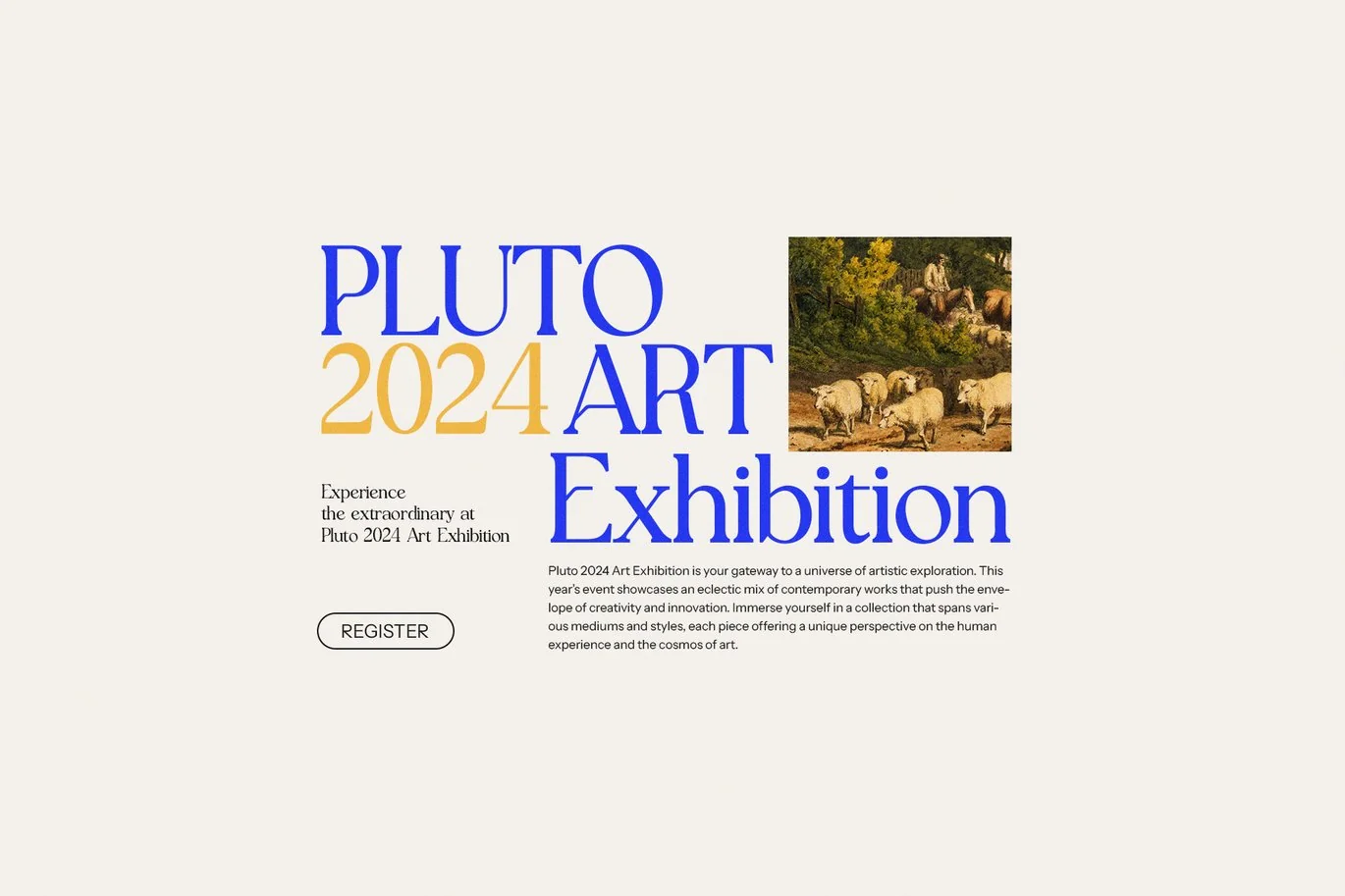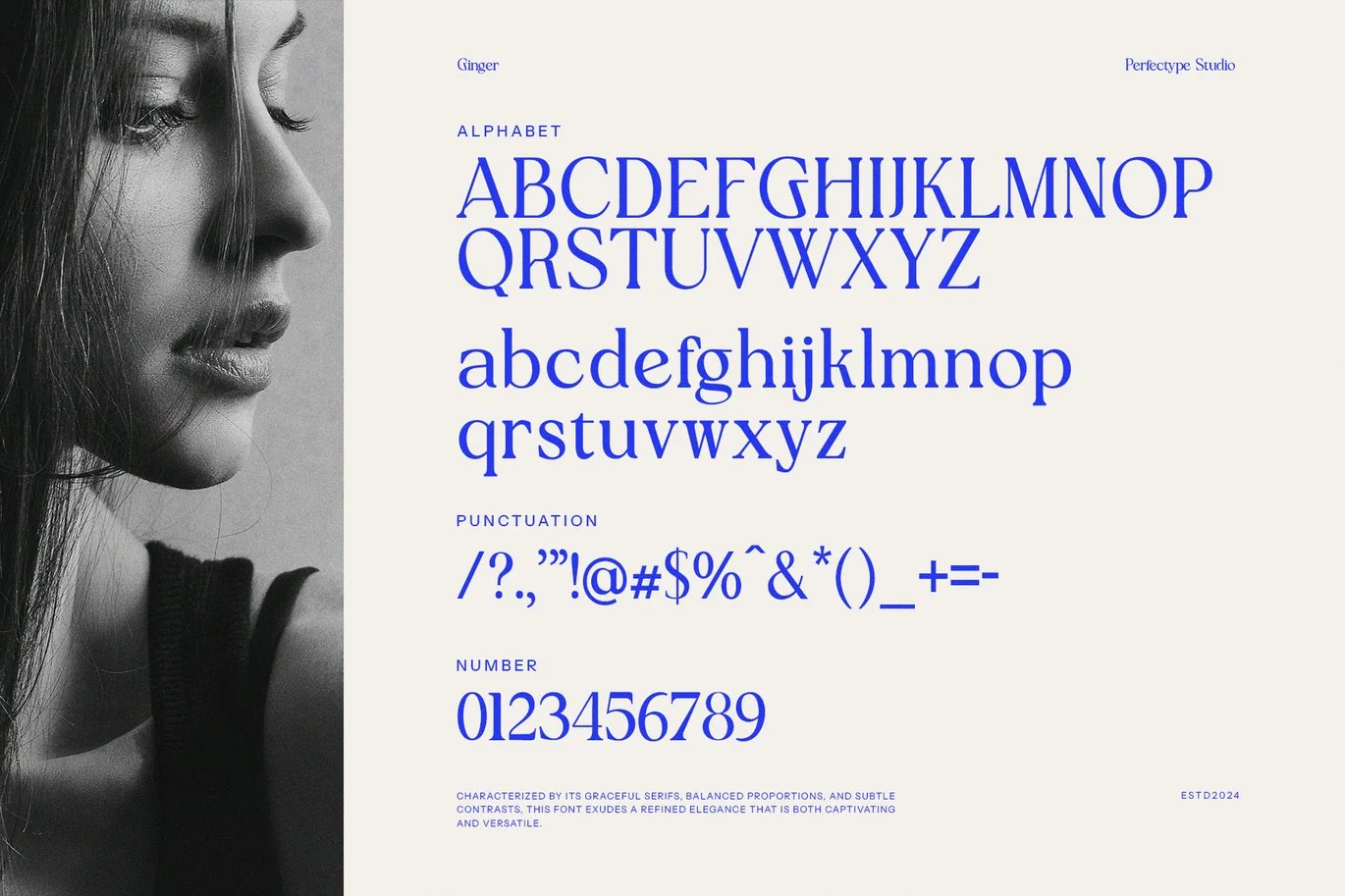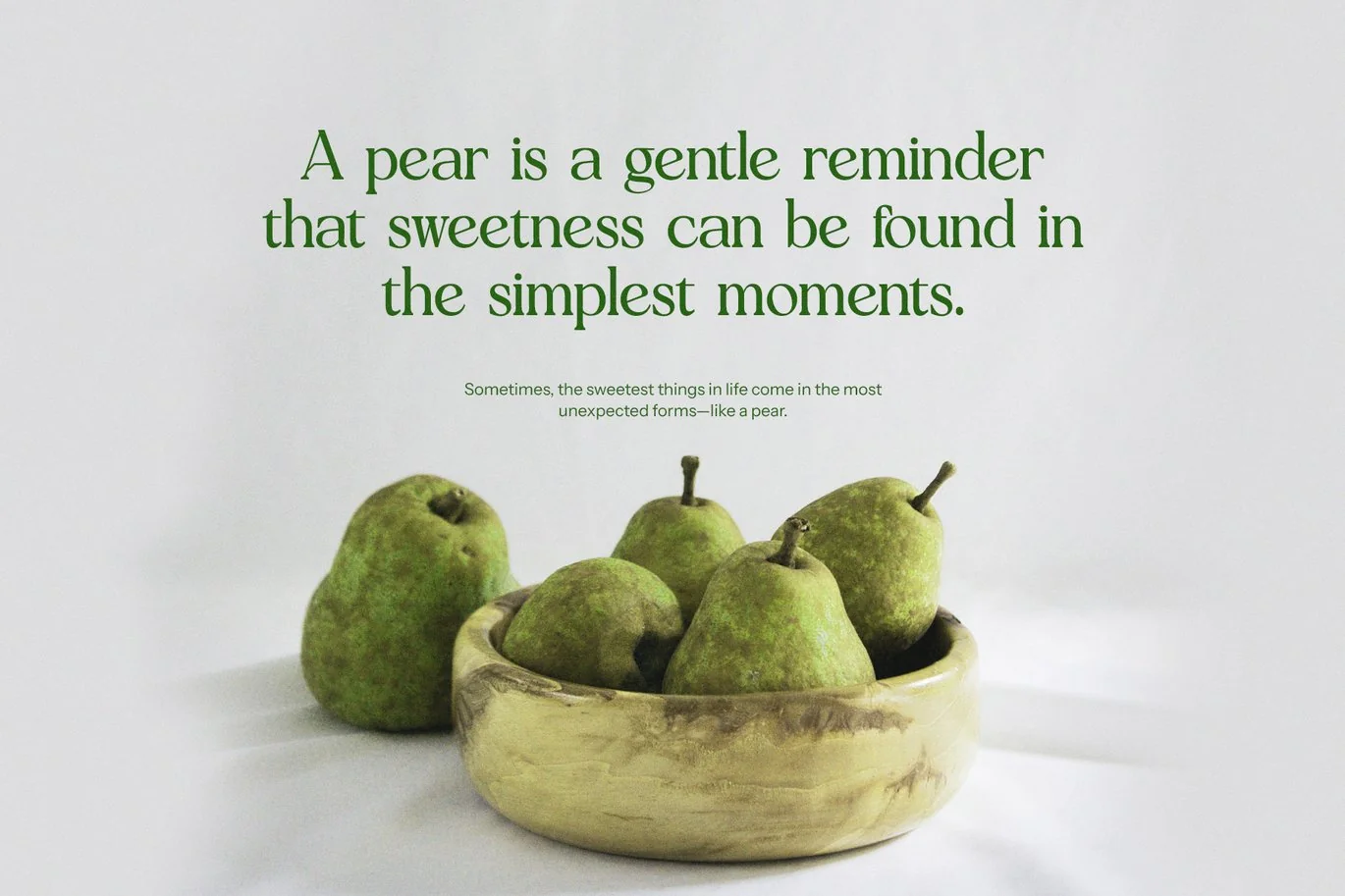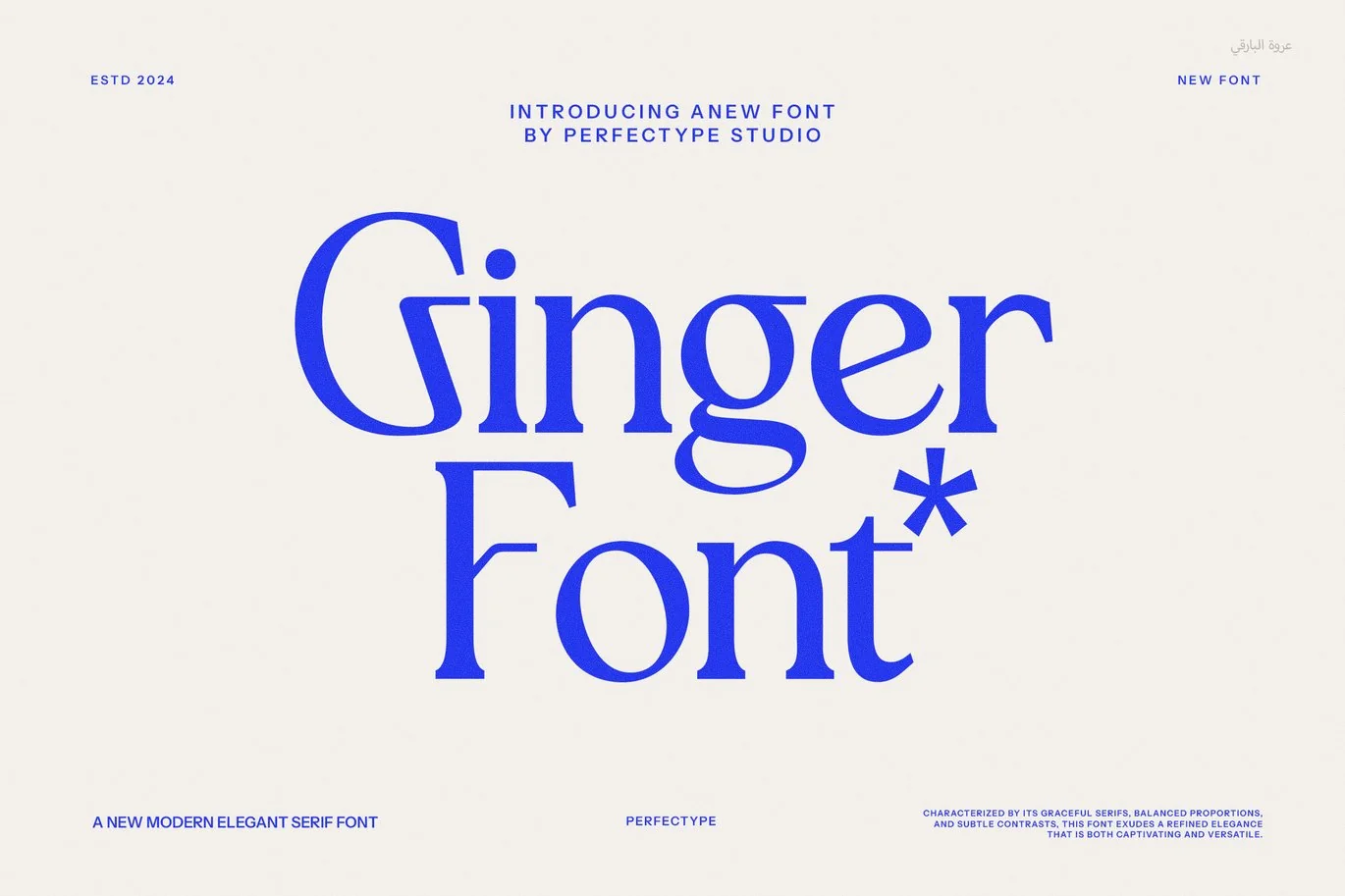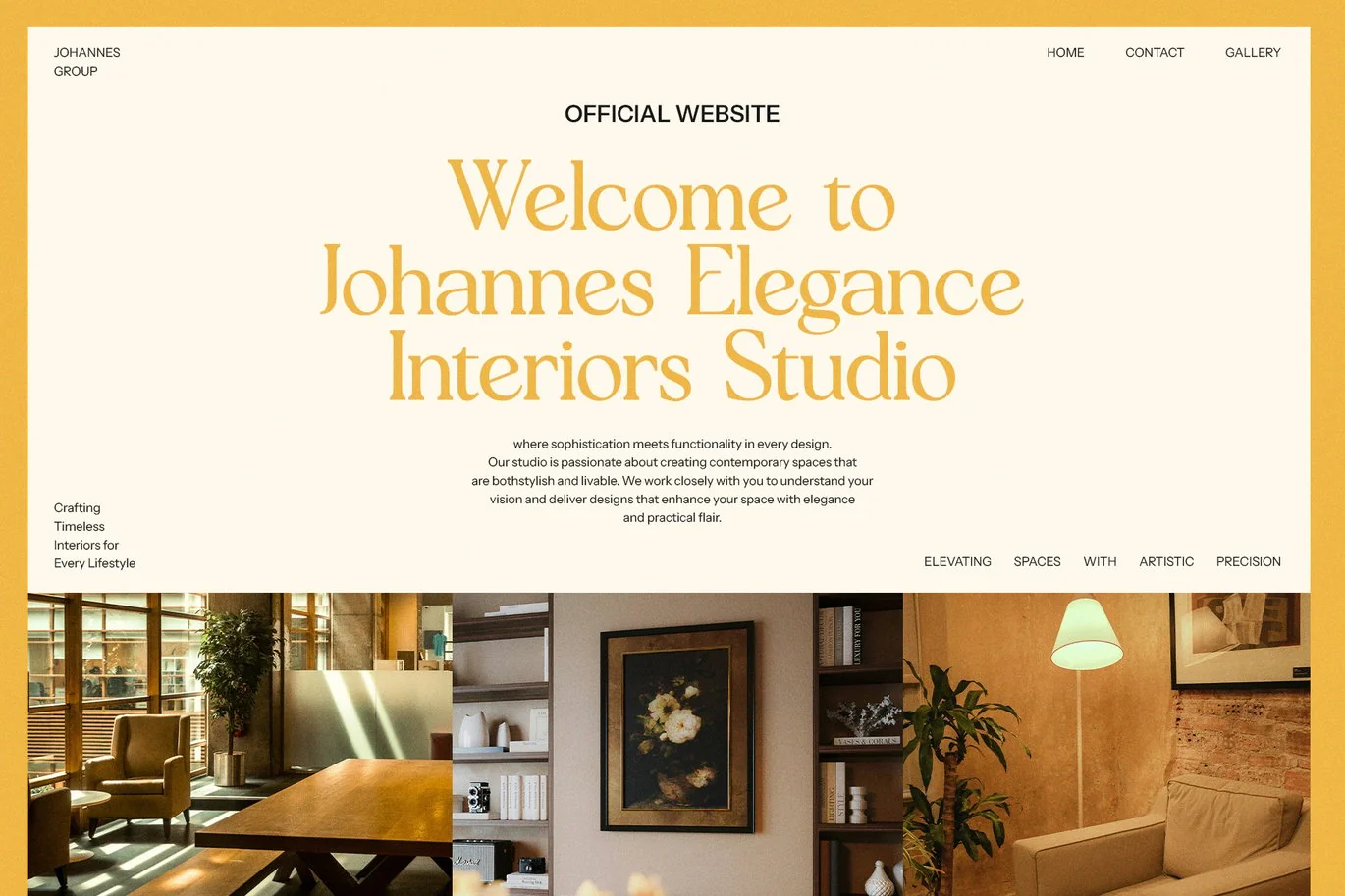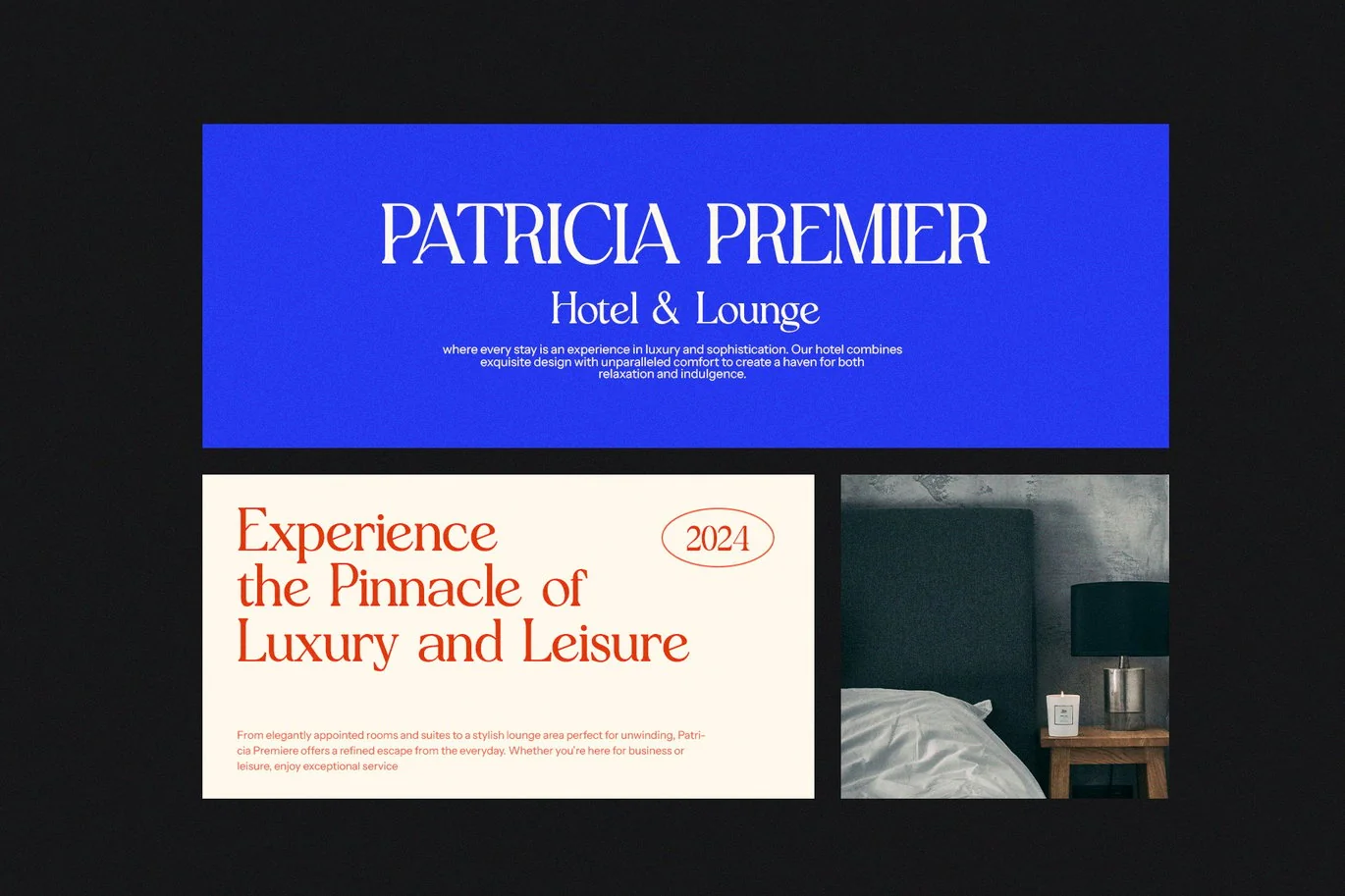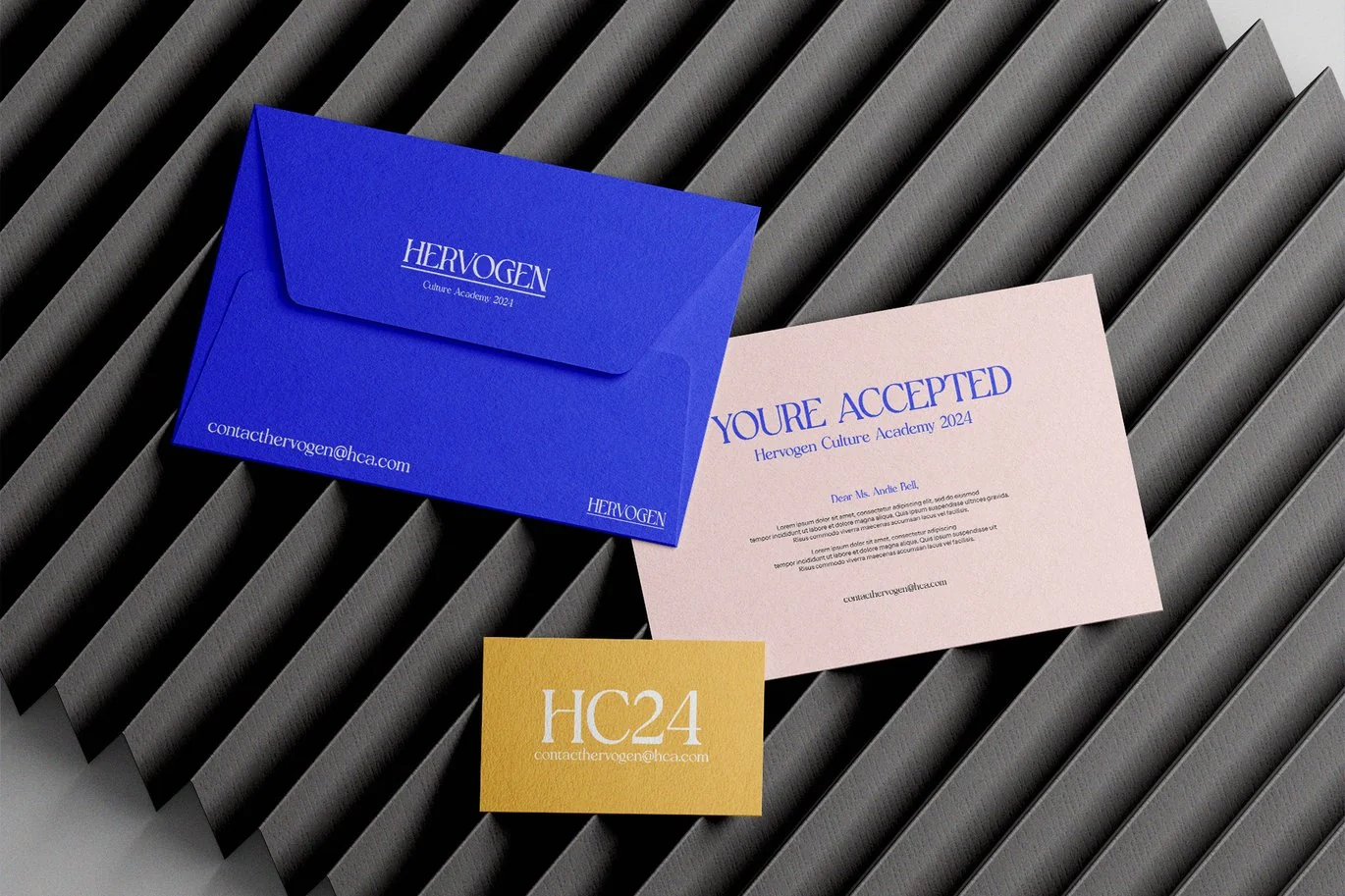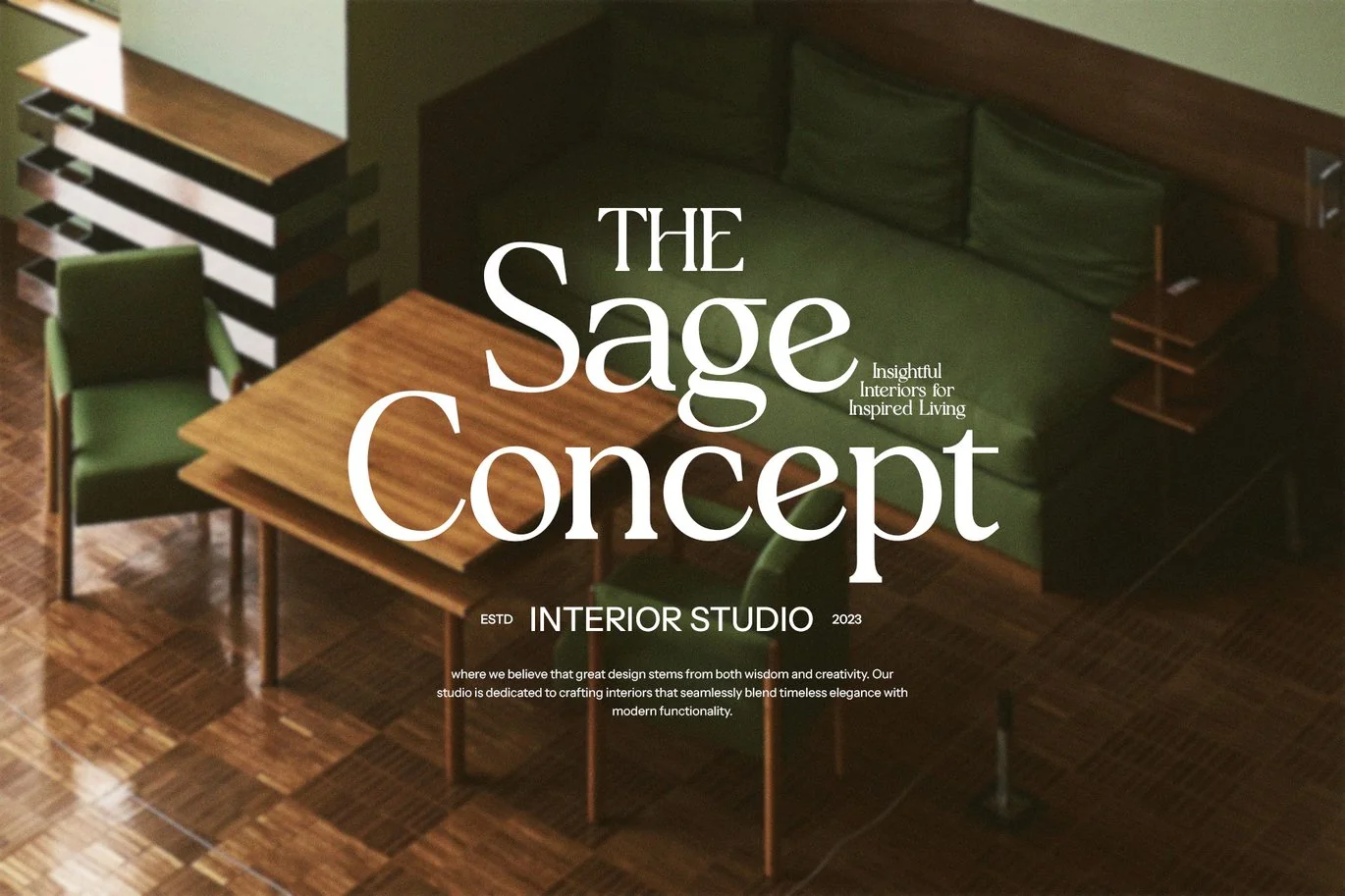
Ginger Display Serif Font
Ginger Display Serif is a contemporary typeface that combines bold elegance with geometric precision. Designed for maximum visual impact, this font features sharp lines, refined curves, and a structured yet stylish appearance, making it a standout choice for both professional and creative projects. Whether you’re working on high-end branding, editorial layouts, or sleek digital designs, Ginger Display Serif ensures a modern and sophisticated presence.
With its well-balanced letterforms and clean structure, this font is perfect for a variety of applications. From corporate branding and advertising to esports visuals and magazine covers, Ginger Display Serif adapts effortlessly, maintaining readability while making a strong statement. The font’s versatility allows it to shine in both minimalist compositions and bold, expressive designs.
Ideal for agencies, businesses, and creatives, this typeface brings a polished touch to logos, brochures, website headers, social media templates, and product packaging. Its geometric shape and elegant details make it suitable for industries ranging from fashion and technology to food and lifestyle.
For those seeking a modern serif that blends strength with sophistication, Ginger Display Serif is the perfect choice. Elevate your designs with this dynamic and eye-catching font, ensuring that every word stands out with confidence and style.